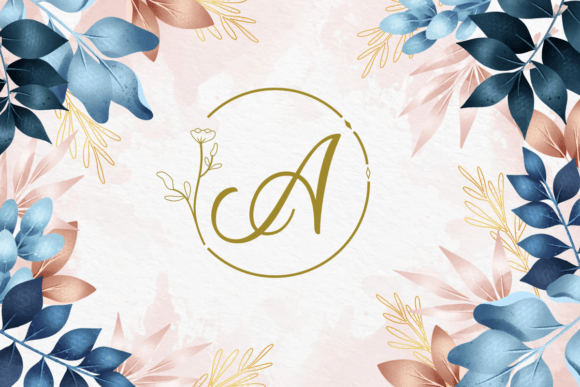
Introducing Ariuna Monogram Font: Elevate Your Designs with Elegance and Sophistication
In the world of typography and design, monograms have always held a special place for their elegance and personal touch. For designers, crafters, and anyone looking to add a unique flair to their projects, the Ariuna Monogram Font is a game-changer. This beautiful font combines letterforms with intricate floral elements, offering four distinct frame styles to suit any design need. In this article, we’ll dive into the features, benefits, and creative possibilities of the Ariuna Monogram Font.
A Blend of Typography and Floral Elegance
The Ariuna Monogram Font stands out for its captivating blend of traditional letterforms and delicate floral motifs. This unique combination allows for the creation of stunning and personalized monogram designs that can elevate any project, from stationery and wedding invitations to branding and packaging. The floral elements add a touch of whimsy and sophistication, making each monogram a piece of art.
Four Distinct Frame Styles for Versatility
One of the key features of the Ariuna Monogram Font is its versatility, offered through four distinct frame styles. Whether you’re aiming for a classic and elegant look or something more modern and playful, there’s a frame style to match your vision. These frames can be used to create monograms that are simple and understated or complex and detailed, depending on your project’s requirements.
For professional designers, the Ariuna Monogram Font offers a fresh and unique element to incorporate into client projects. Its distinctive blend of typography and floral designs can help differentiate your work and provide clients with something truly special. For crafters and DIY enthusiasts, this font opens up a world of creative possibilities. From customizing home decor to creating personalized gifts, the Ariuna Monogram Font makes it easy to add a professional touch to your handmade projects.
Benefits of Using Ariuna Monogram Font
- Unique Designs: The combination of letterforms and floral elements ensures that your monograms stand out.
- Versatility: With four frame styles, you can choose the perfect look for your project.
- Ease of Use: Designed to be user-friendly, the Ariuna Monogram Font can be easily integrated into various design projects.
- Personalization: Create personalized monograms for gifts, branding, or personal use with a professional touch.
Creative Applications of Ariuna Monogram Font
The creative applications of the Ariuna Monogram Font are endless. Here are a few ideas to get you started:
- Wedding and Event Stationery: Add a touch of elegance to wedding invitations, save the dates, and event signage.
- Branding and Packaging: Use monograms to create unique logos, packaging, and marketing materials that stand out.
- Home Decor: Personalize home decor items such as pillows, wall art, and mirrors with custom monograms.
- Gifts and Crafts: Create one-of-a-kind gifts, such as personalized journals, cutting boards, and more.
The Ariuna Monogram Font is a versatile and beautiful addition to any designer’s or crafter’s toolkit. Its unique blend of typography and floral elements, combined with four distinct frame styles, offers endless possibilities for creating stunning and personalized monogram designs. Whether you’re working on a professional project or a personal craft, the Ariuna Monogram Font is sure to inspire and elevate your work. Dive into the world of elegant and sophisticated design with the Ariuna Monogram Font and discover the difference it can make in your creations.